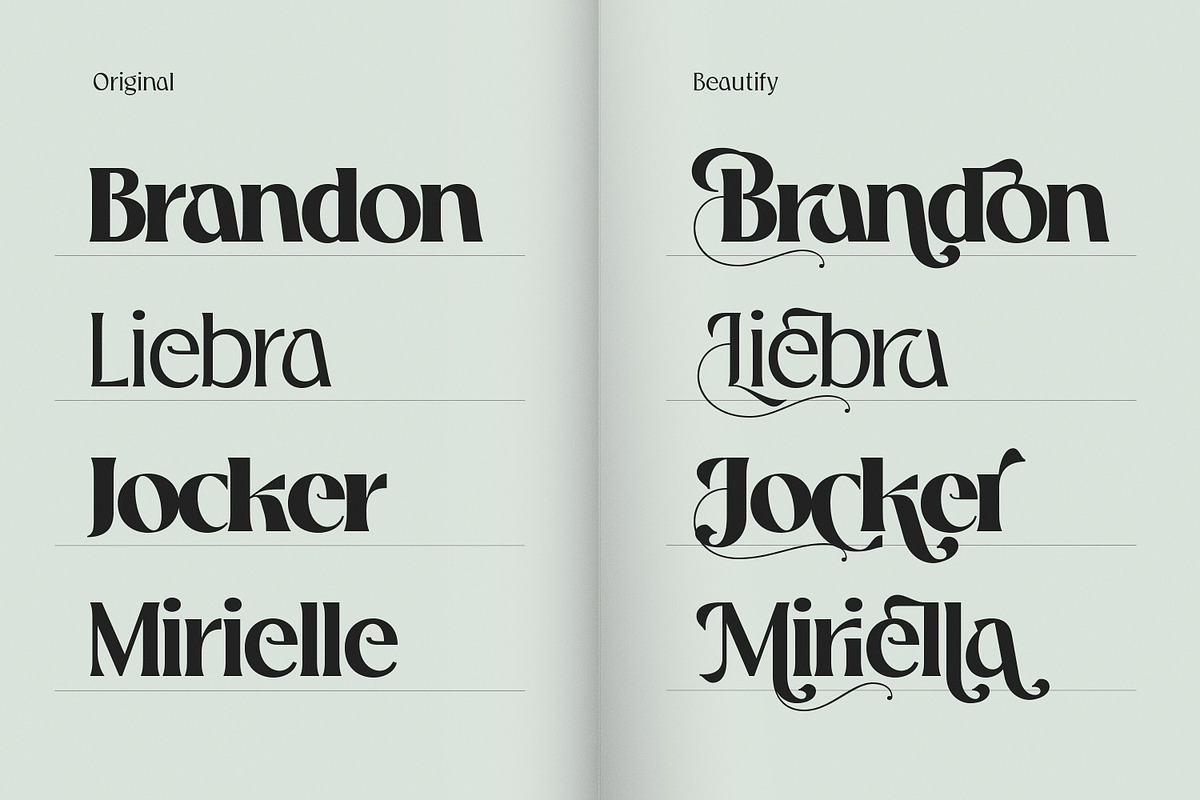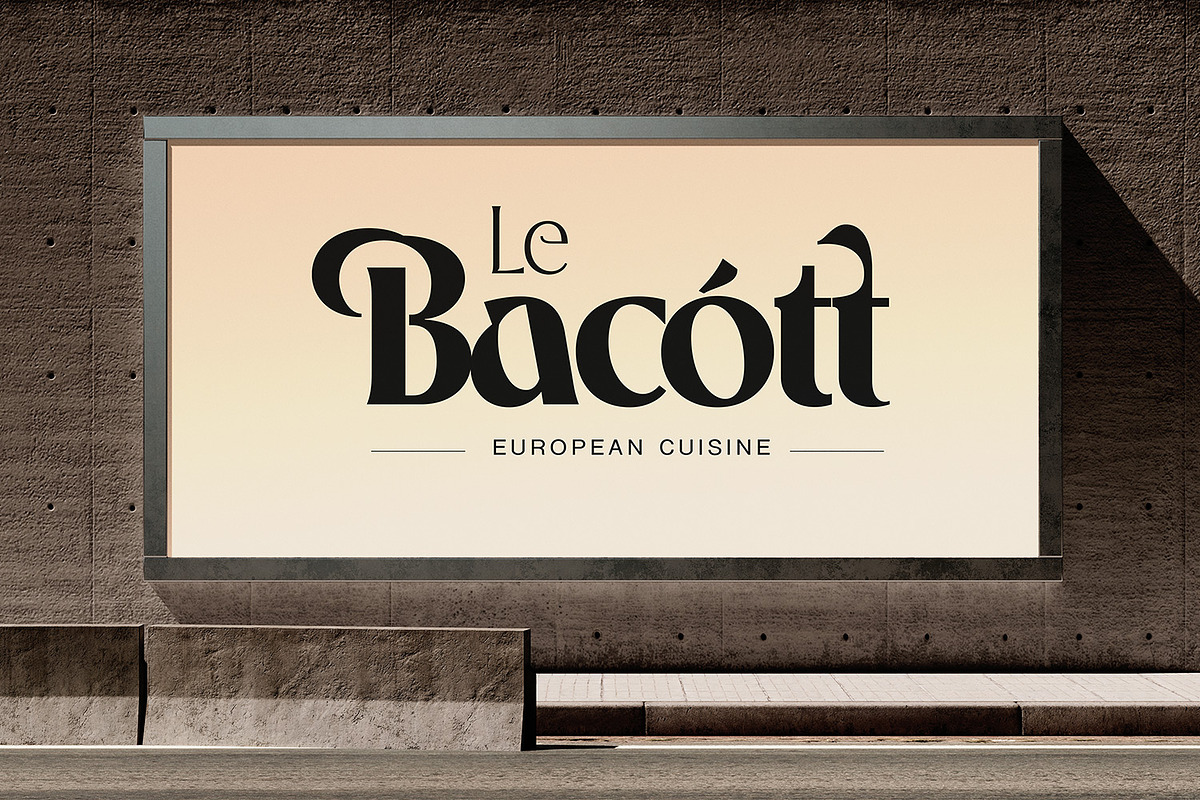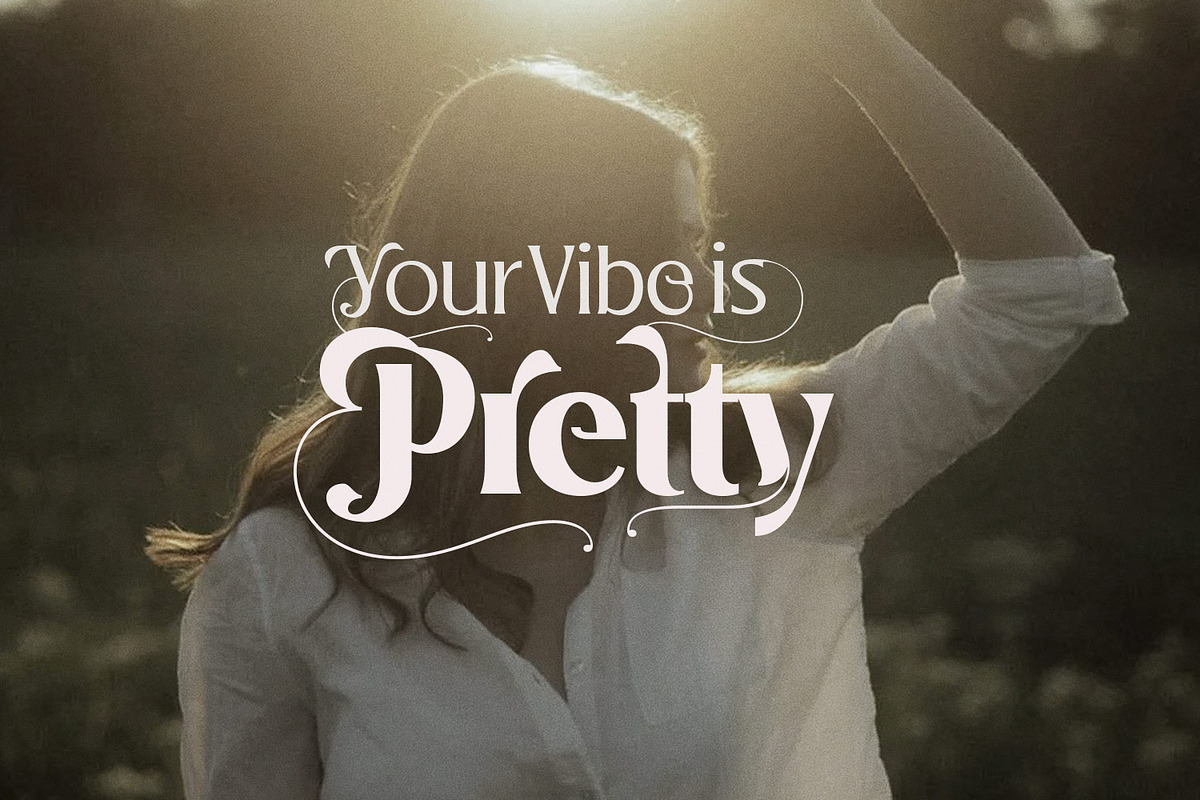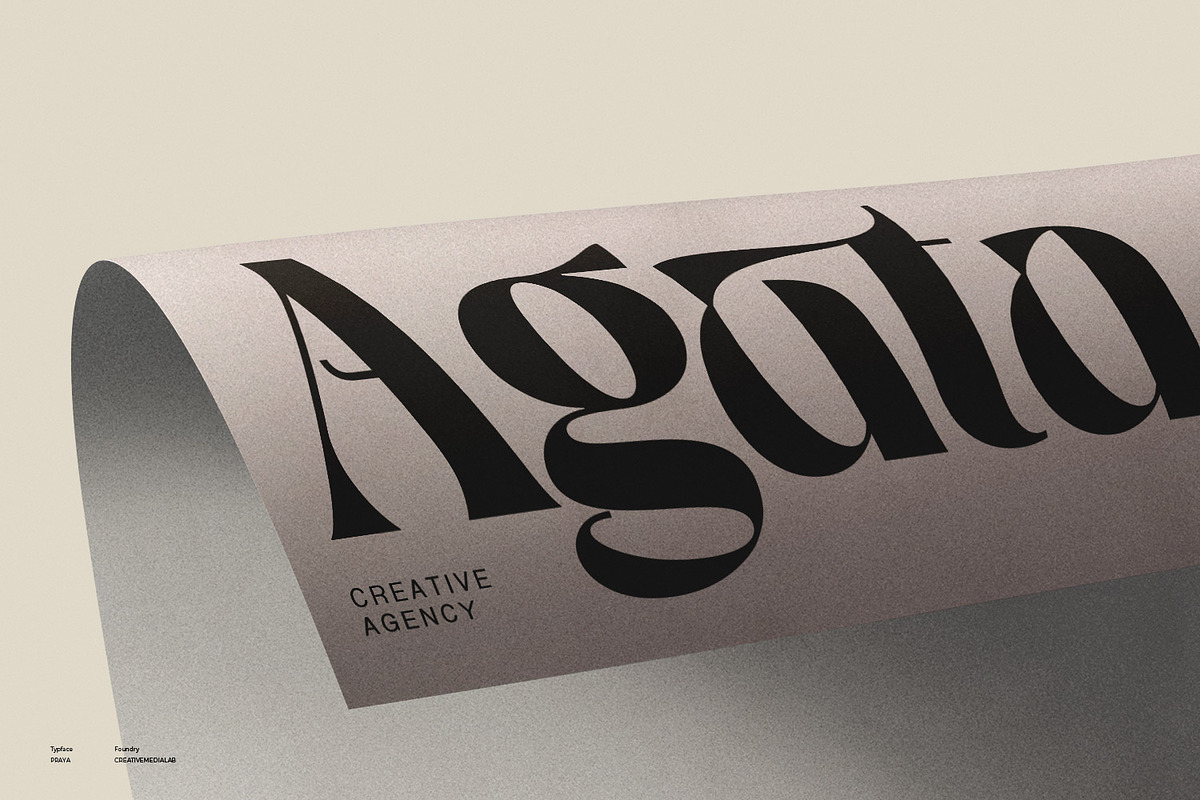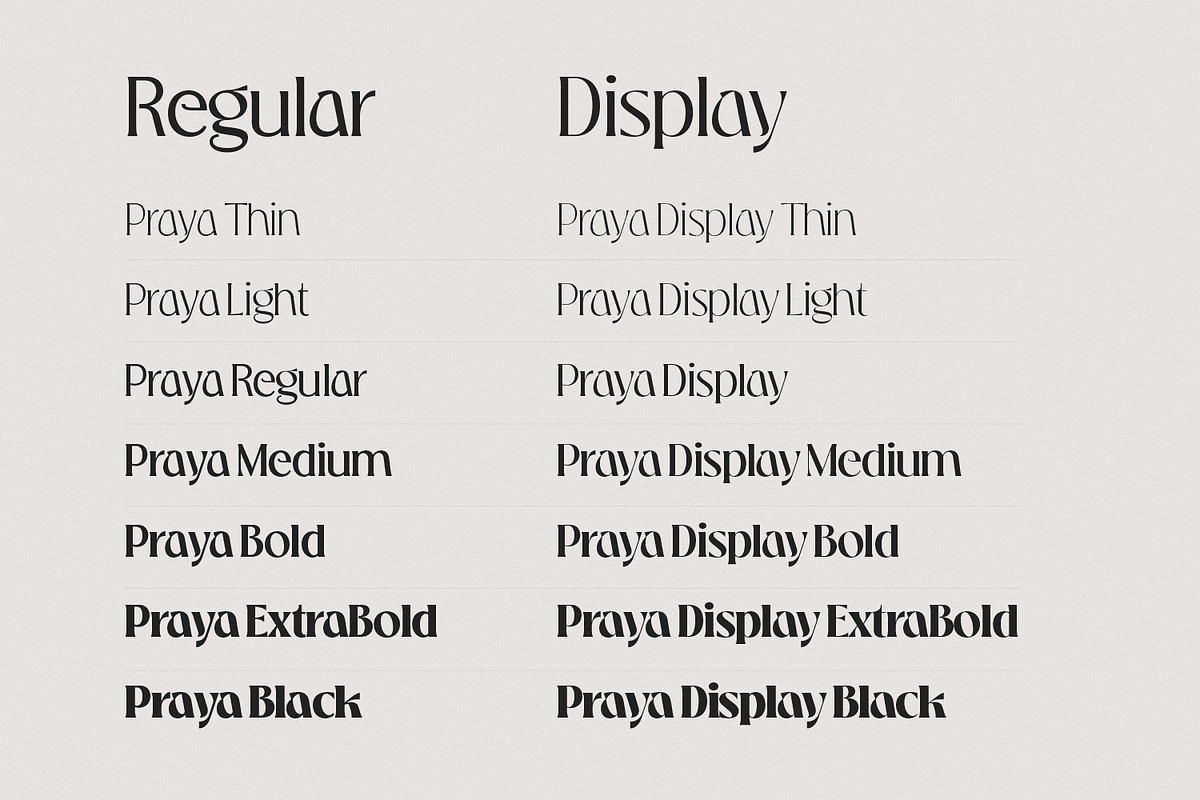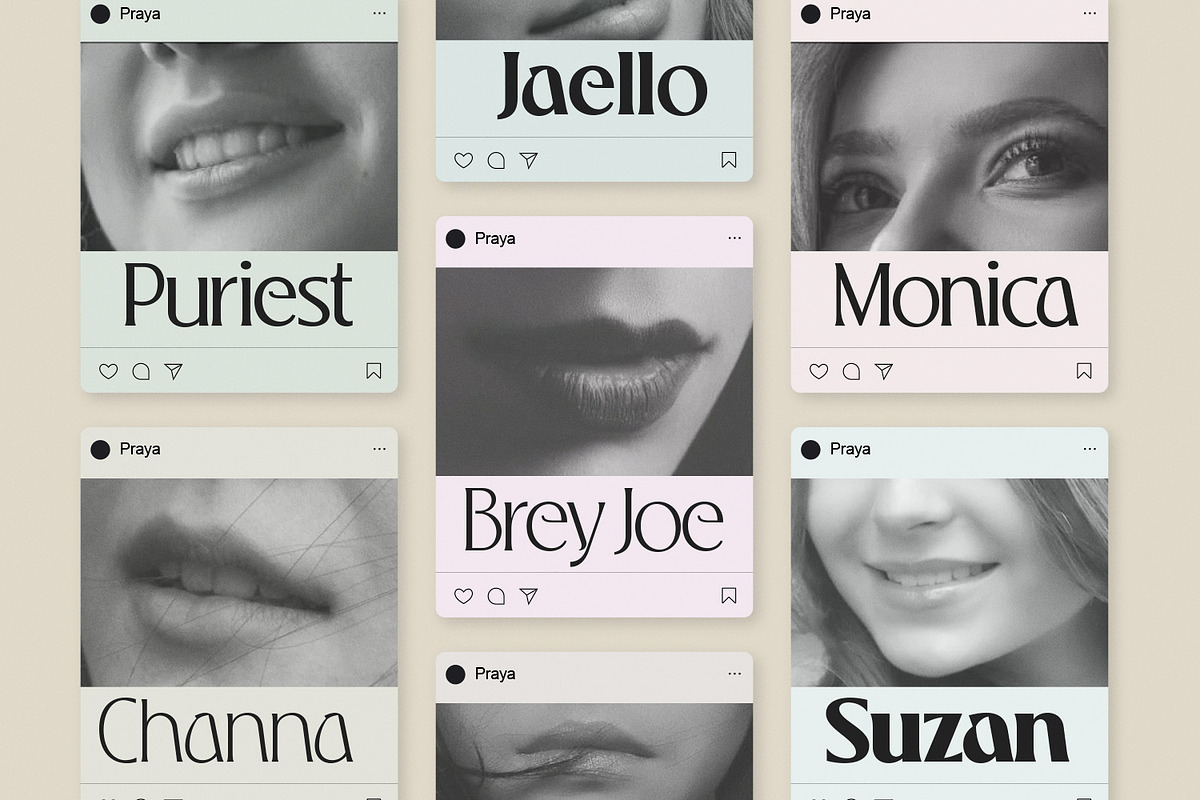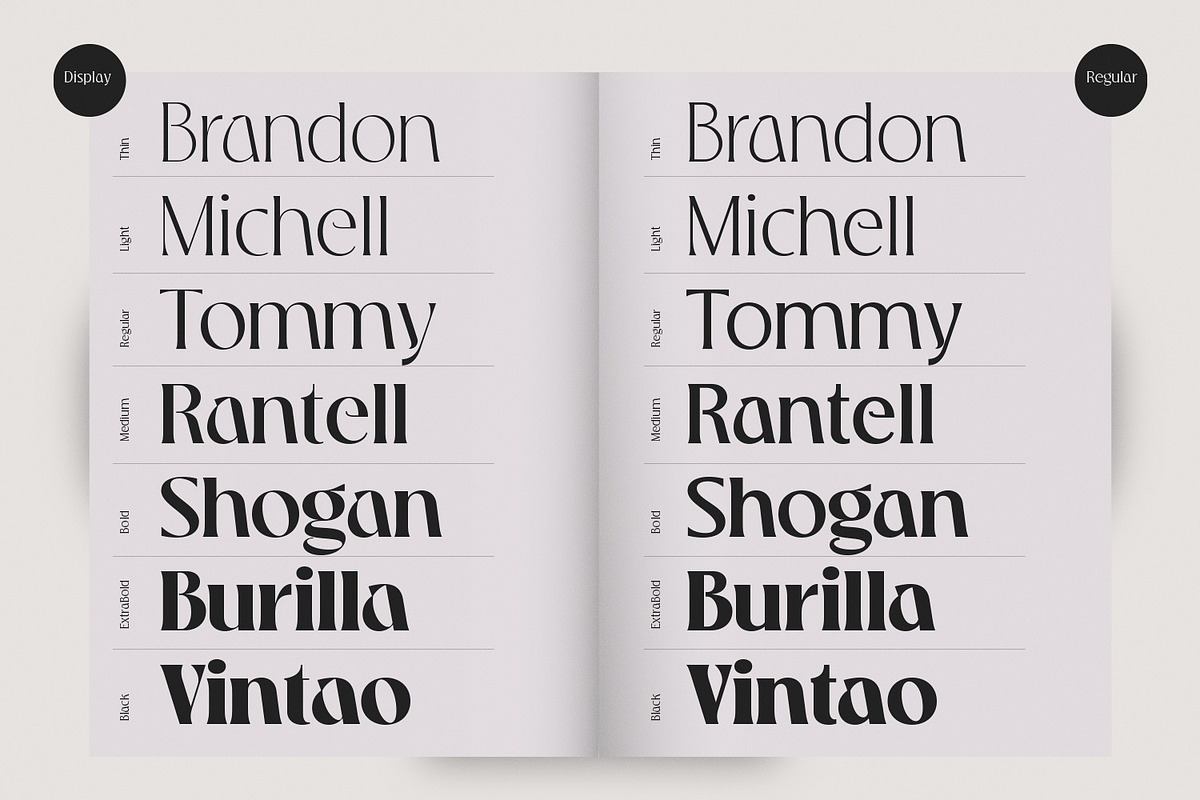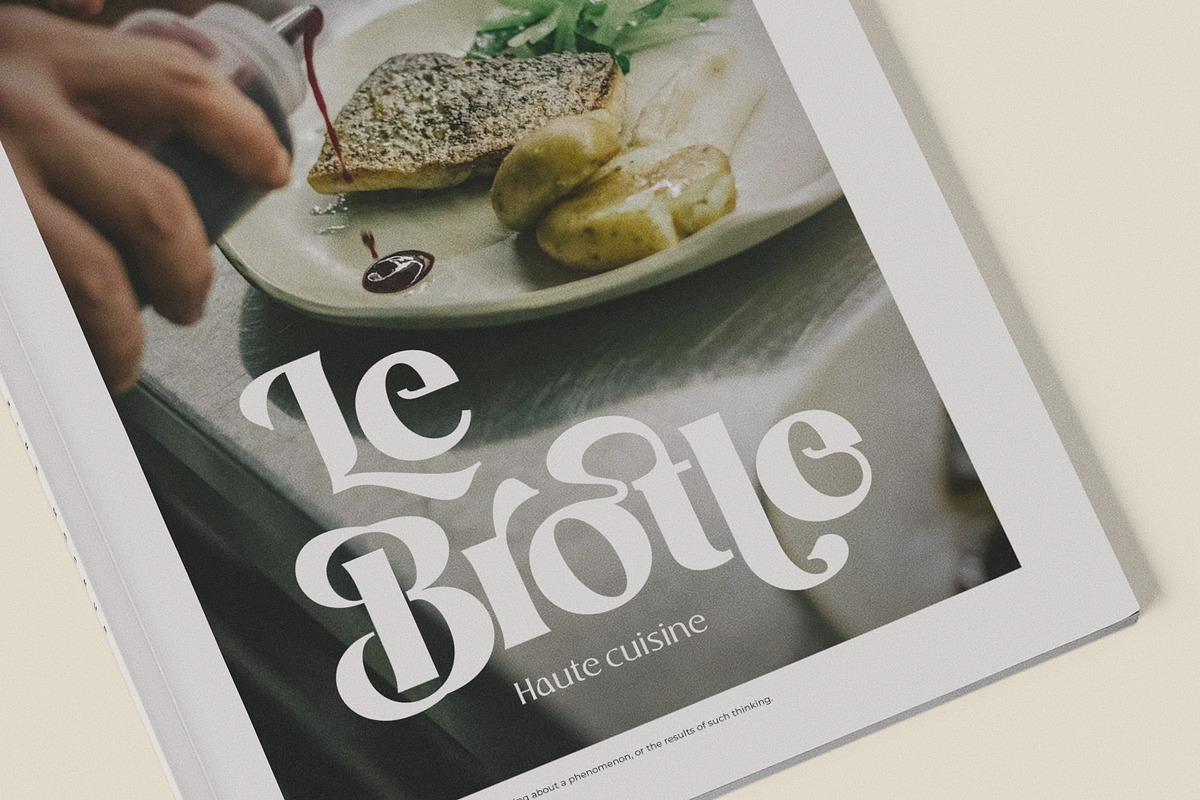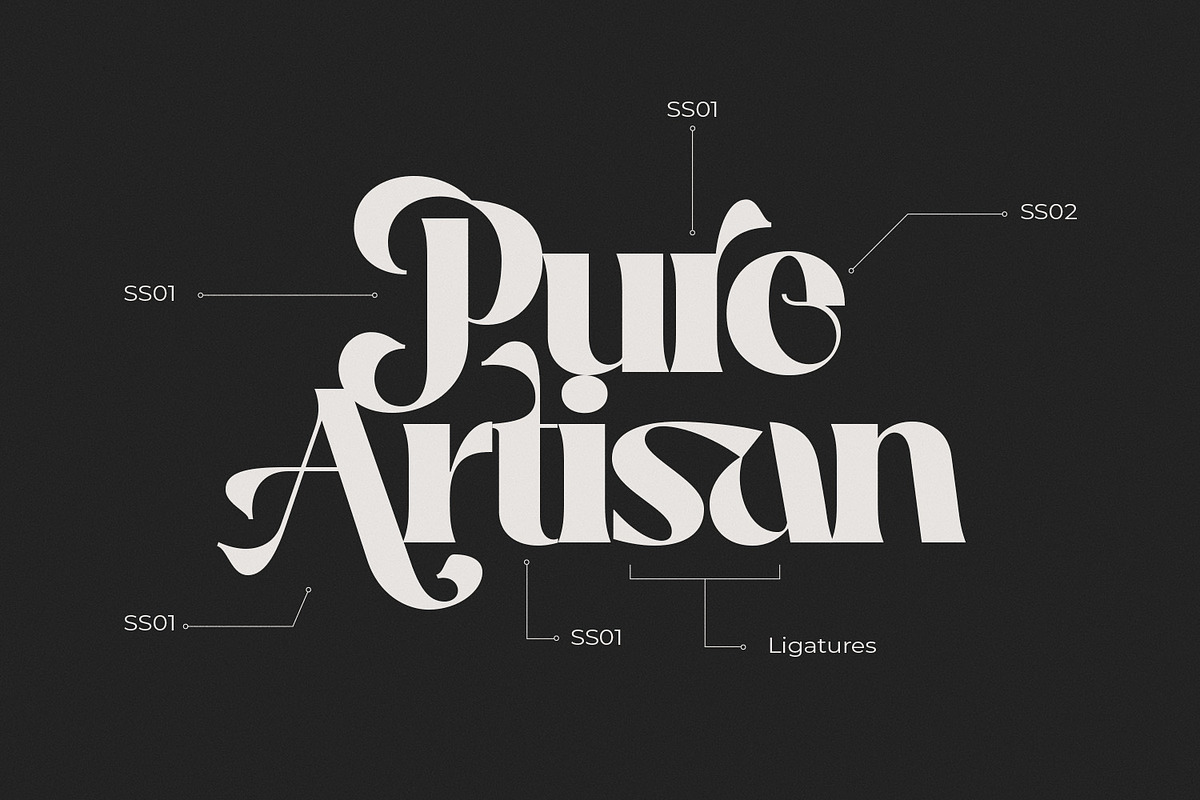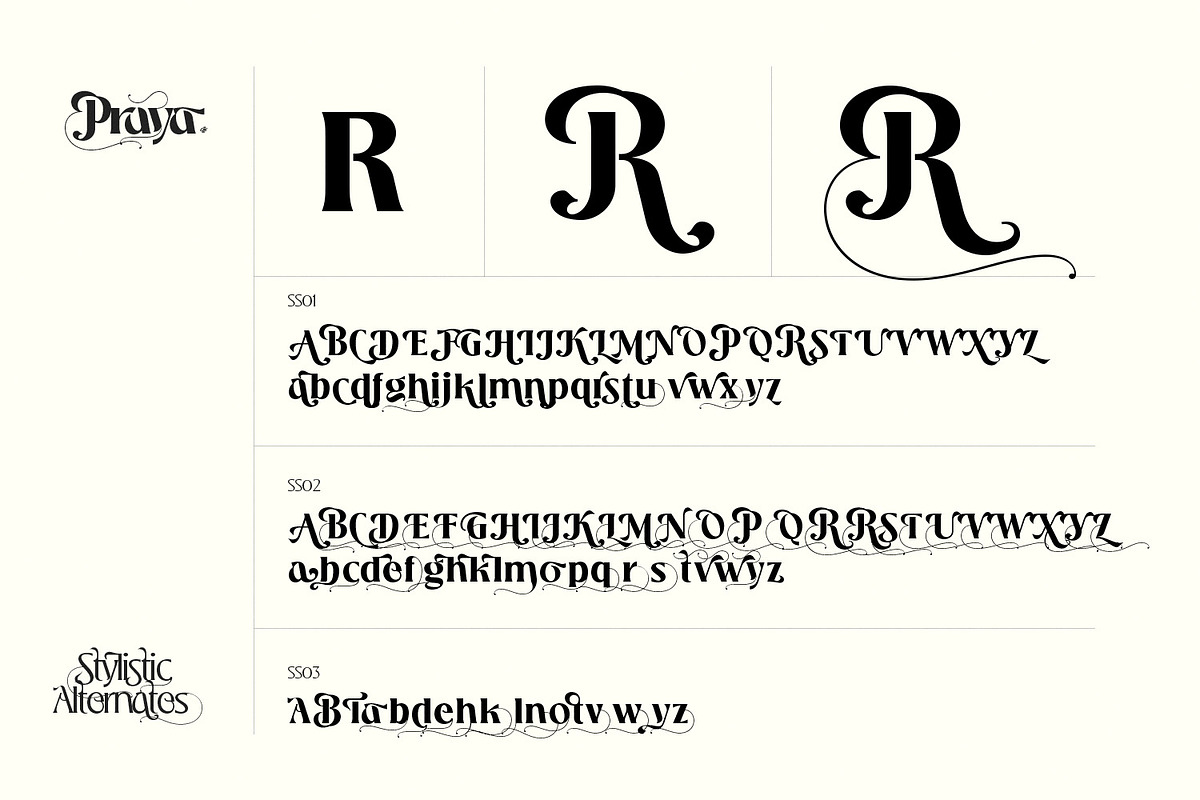
Praya - Modern Branding Font
Introducing Praya, a modern font family for branding and display. Inspired by the shape and beauty of the hibiscus flower, it consists of two variants, regular and display, and each variant has seven weights from thin to black.
This unique font family features a range of beautiful alternate options with dynamic curves, adding an exotic and elegant touch to your design projects.
- Discretionary Ligatures
Supported Languages
Western Europe, Central/Eastern Europe, Baltic, Turkish, Romanian